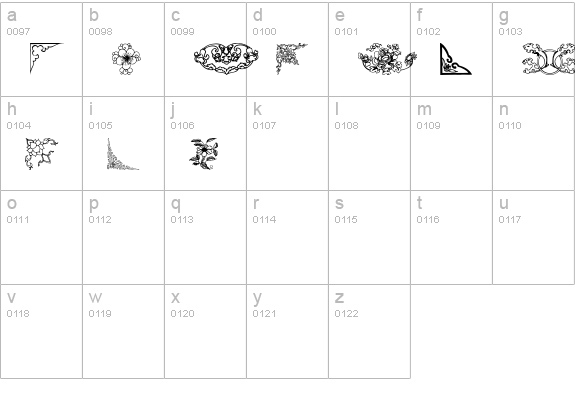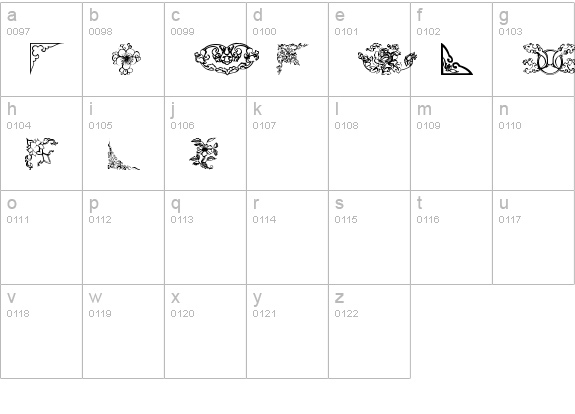
Dover Chinese Motif Design Font Details
The Dover Chinese Motif Design font is a captivating and elegant typeface that beautifully incorporates traditional Chinese motifs into each character. With intricate details and a sophisticated design, this font is perfect for adding a touch of cultural flair to your projects. The unique blend of Chinese calligraphy and modern design elements makes this font stand out and adds a sense of artistry to any text. Best of all, the Dover Chinese Motif Design font is completely free to download at FontsMarket.com. Whether you're working on a branding project, creating invitations, or designing a poster, this font will bring a touch of sophistication and cultural richness to your work. Embrace the beauty of Chinese design with the Dover Chinese Motif Design font today!